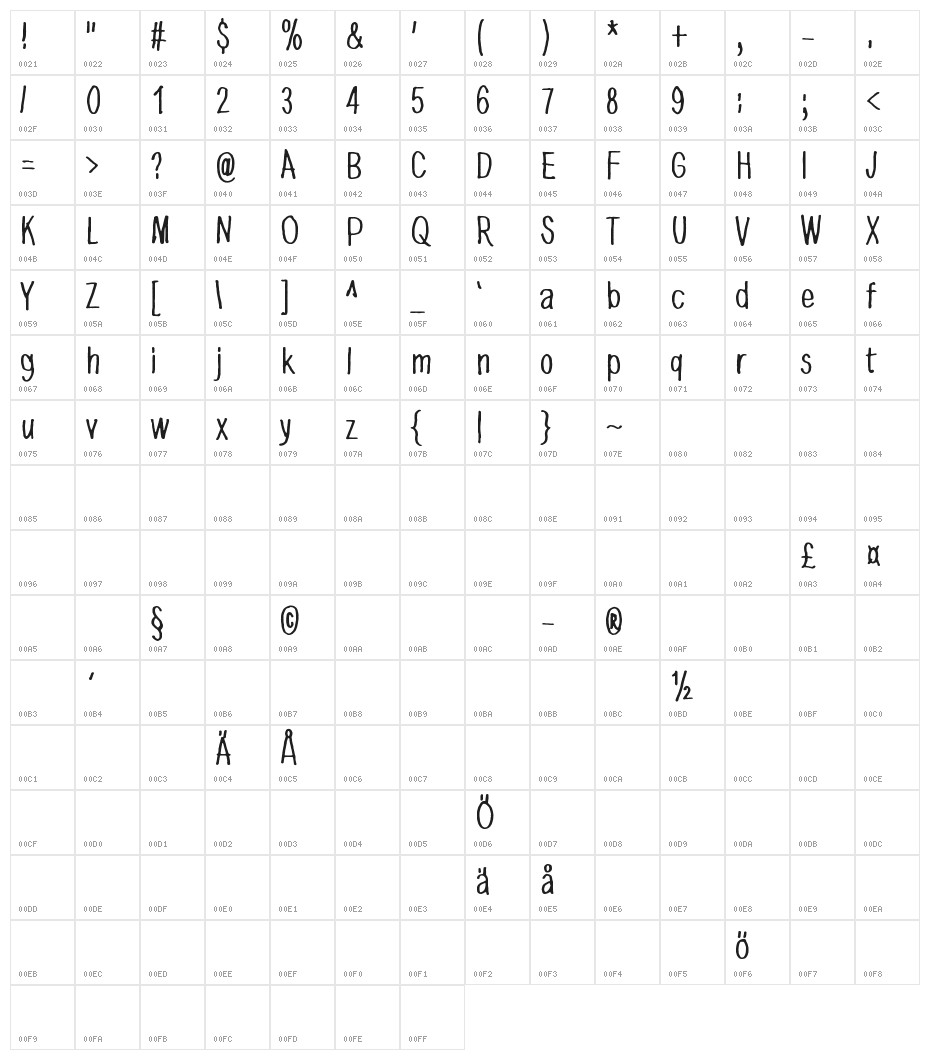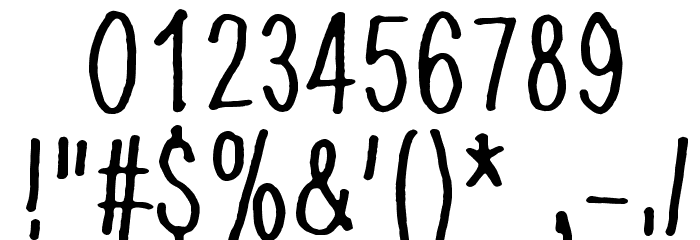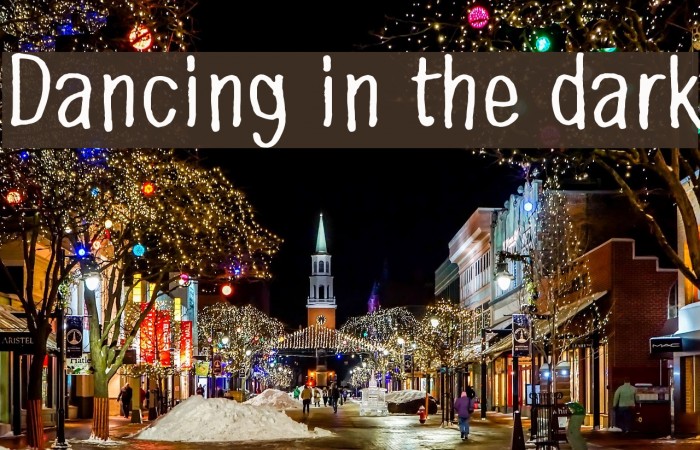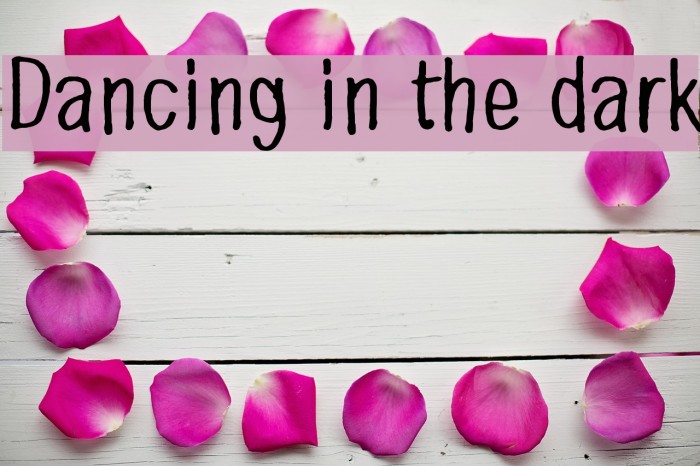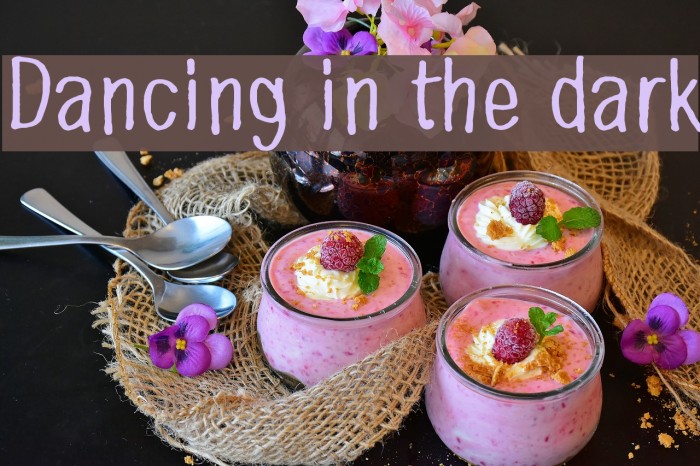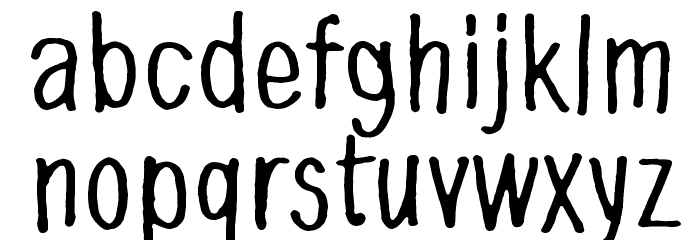
Dancing in the dark Font
Dancing in the dark Description
This font features a playful and informal handwritten style, characterized by its uneven strokes and slightly irregular letterforms. The uppercase and lowercase letters maintain a consistent height, giving it a cohesive appearance despite its casual nature. The numerals and special characters follow the same whimsical design, making it suitable for projects that require a personal touch. The strokes are moderately thick, providing good readability while retaining a hand-drawn aesthetic. This font is ideal for creative projects where a relaxed and approachable feel is desired.
| Overall Style | Casual, Playful |
| Use Case | Headlines, Informal text, Creative projects |
| Proposed Projects | Ideal for greeting cards, children's books, casual branding, and social media graphics. |